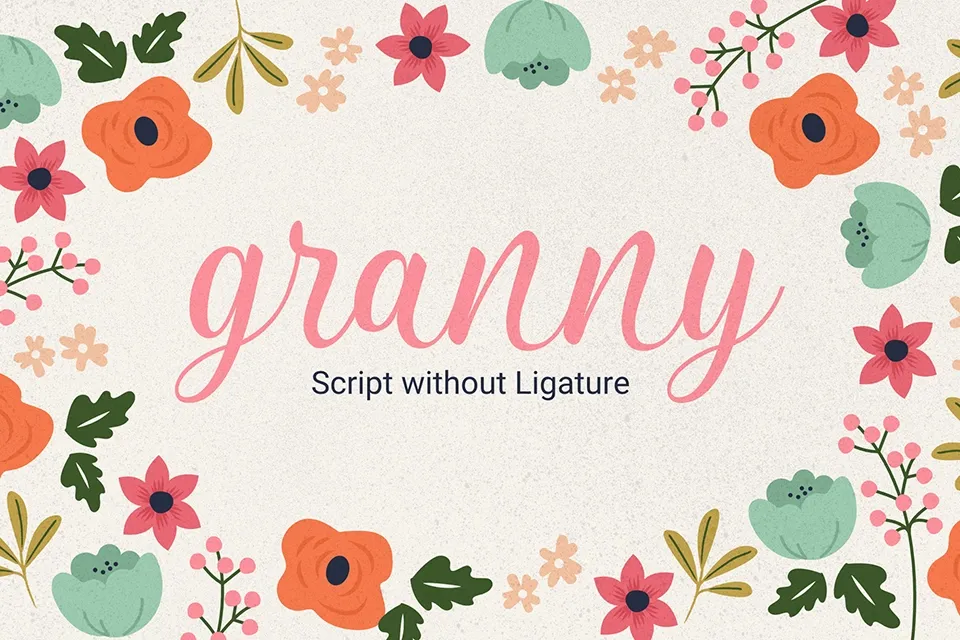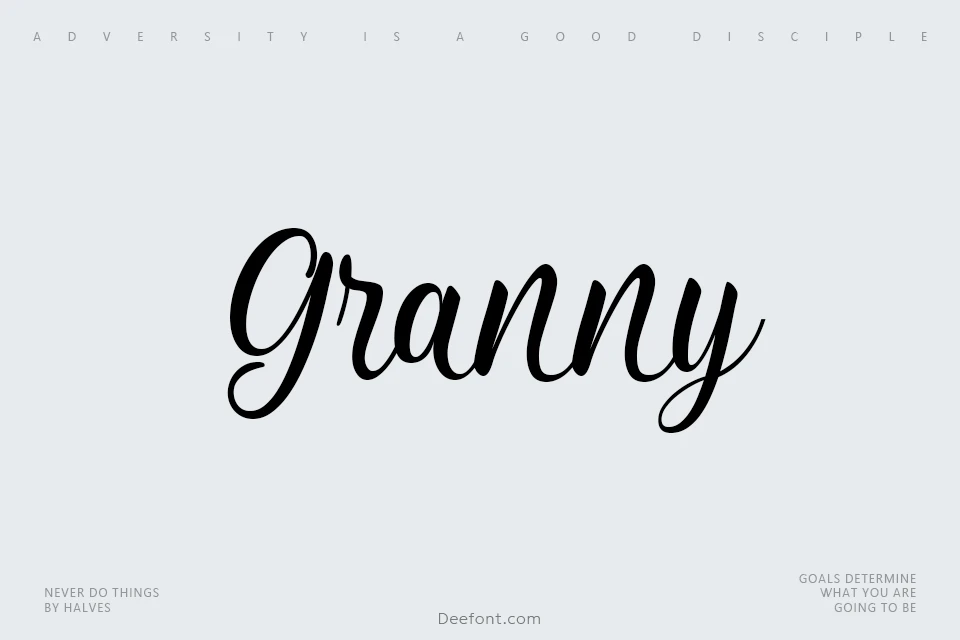
Granny Font
Granny Font is a sweet and cursive handwritten script that brings a gentle, joyful, and romantic touch to your designs. Perfect for invitations, greeting cards, and creative projects, this script font offers a charming, approachable style that stands out without using ligatures.